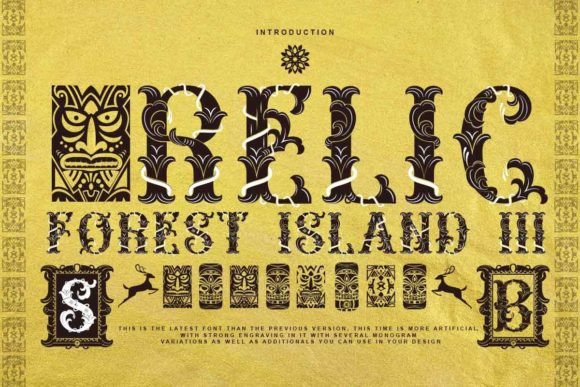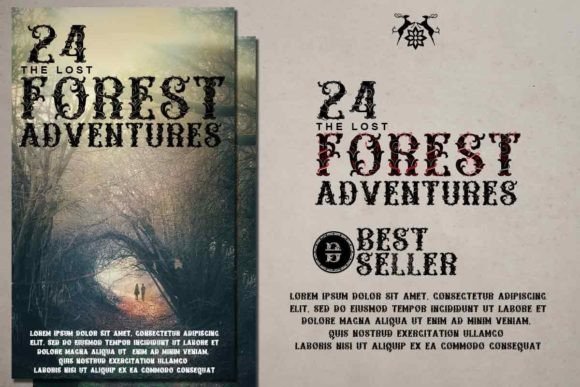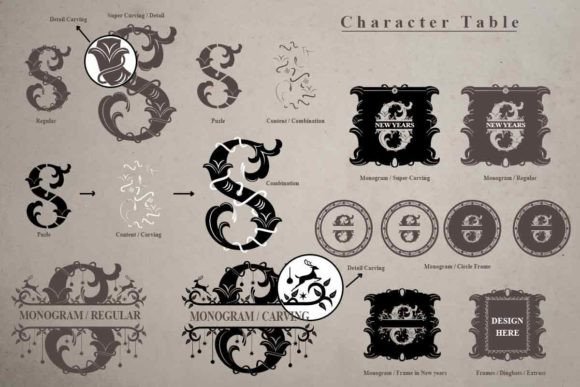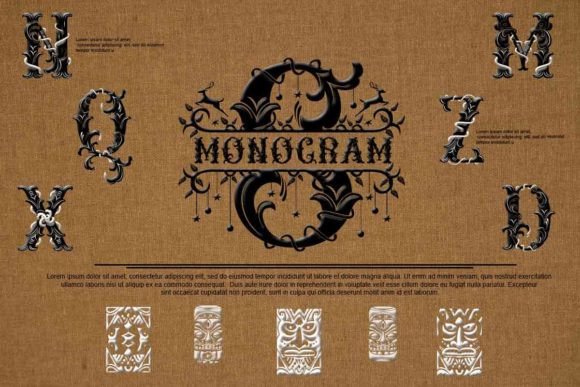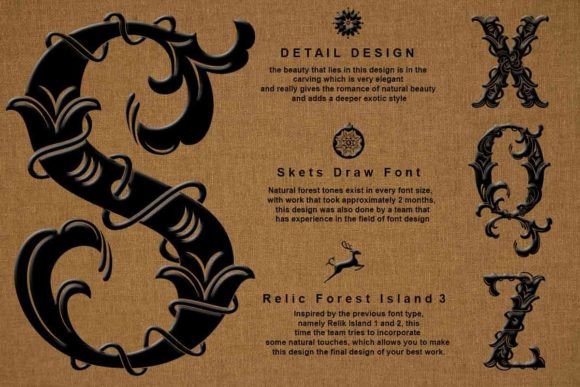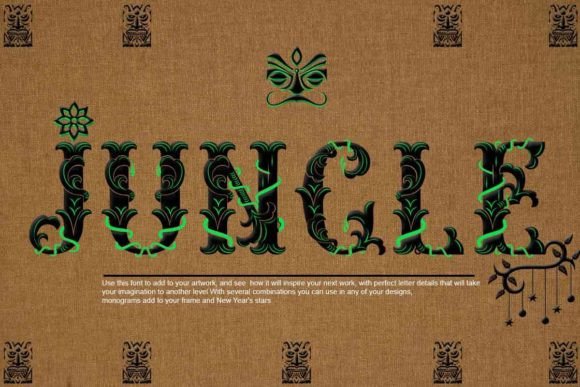
Introduction to Relic Forest Island Iii Font
Have you ever found yourself staring at a blank canvas, searching for that perfect design element to bring your creative project to life? For designers, this moment can be a make-or-break experience, where the right font can elevate an entire aesthetic or sink it. This is where the Relic Forest Island Iii Font comes in – a game-changing design resource that’s about to revolutionize the way you approach typography.
With its intricate carvings, charming monograms, and versatile family options, this high-quality font is an absolute must-have for any designer looking to add a touch of sophistication to their work. Whether you’re working on a free download project or a commercial design, Relic Forest Island Iii Font is the perfect addition to your toolkit, offering a transparent background and endless possibilities for customization.
Key Features of Relic Forest Island Iii Font
- High-quality, detailed design perfect for creative projects requiring a unique and mystical atmosphere.
- Unique characteristics include intricate details, organic textures, and a mystical ambiance, perfect for fantasy and adventure-themed projects.
- Perfect for use in digital art, graphic design, game development, and other creative pursuits requiring a high-quality, unique font.
Honest Review: Relic Forest Island Iii Font
I recently stumbled upon the Relic Forest Island Iii Font, a free download that caught my attention due to its unique and intricate design. As a designer, I was excited to explore this new design resource.
Here’s what I liked about this font:
- ✨ Unique and high-quality design that adds a touch of whimsy to any creative project.
- ✨ Translucent background, allowing for easy layering and manipulation in various design applications.
- ✨ Perfect for fantasy or adventure-themed projects, or for anyone looking to add a bit of magic to their design.
- ⚠️ The font’s intricate design may make it difficult to read in certain font sizes or applications.
Overall, I’m impressed with the Relic Forest Island Iii Font’s potential as a design resource. While it may have some limitations, its unique design and free download make it a valuable addition to any designer’s toolkit.